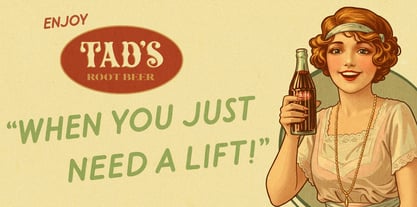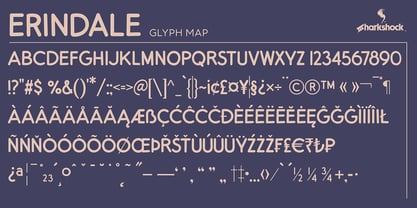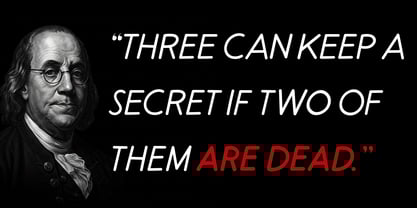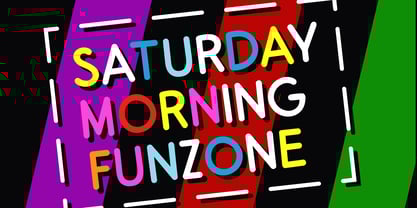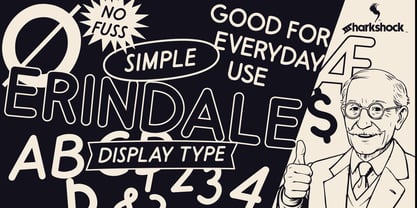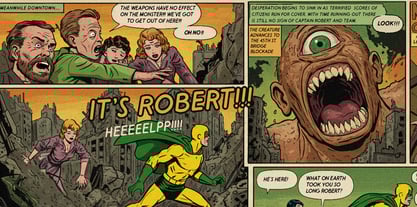
Erindale
Die Schriftfamilie Erindale wurde von Dennis Ludlow entworfen und von Sharkshock veröffentlicht. Erindale enthält 4 Stile und Familienpaketoptionen. Mehr über diese Familie
Erindale is an all caps display family inspired by advertisements of the 1920s and 30s. This style of lettering was usually featured in subheadings and slogans one would find in print during this era. While the letter forms appear orderly at first glance, their alignment and spacing is slightly altered to simulate a humanistic hand drawn appearance. The Italic versions take this a bit further with more obvious variations between letter pairs and degree of slant. When used as subhead text it’s clean, highly legible, and won’t steal the spotlight from the centerpiece of your project. Use it for signage, a family friendly logo, comics, or a classic looking poster. Try the light version for a low contrast substitute.
Erindale is equipped with Basic and extended Latin, punctuation, kerning, and comes in 4 versions. Please check the glyph map for all supported characters.